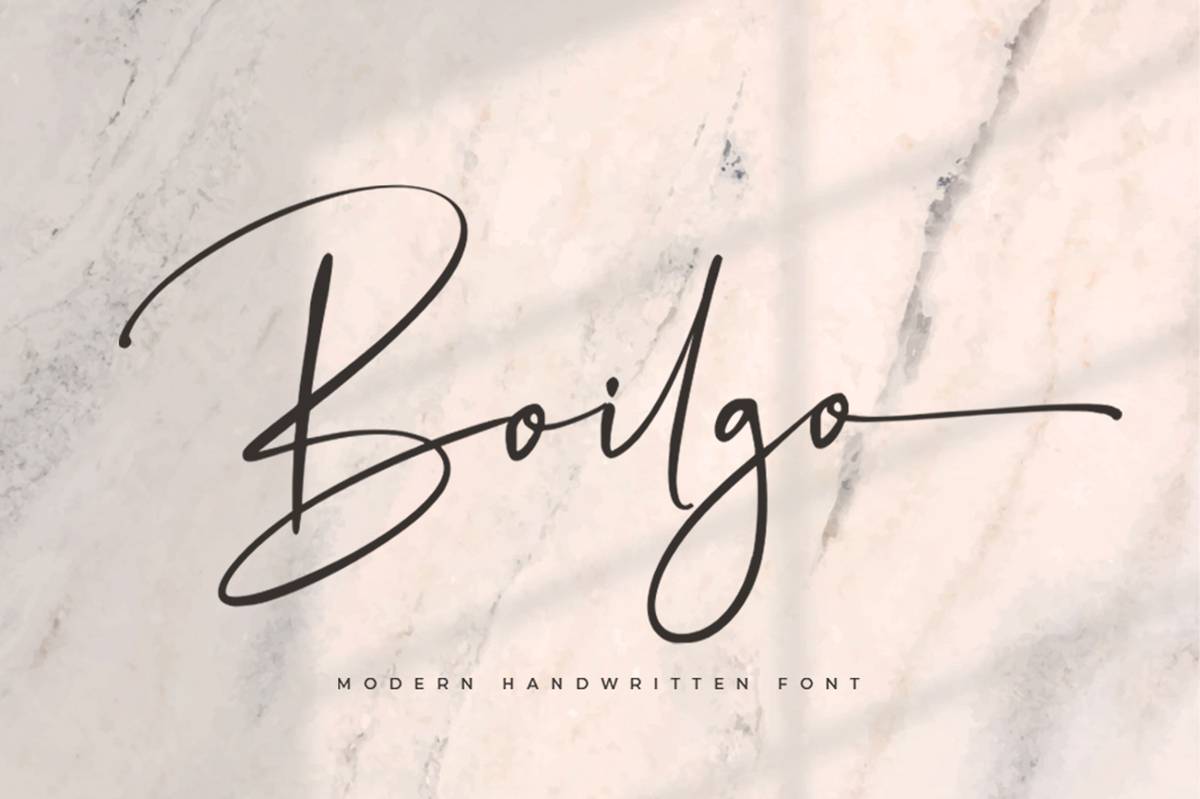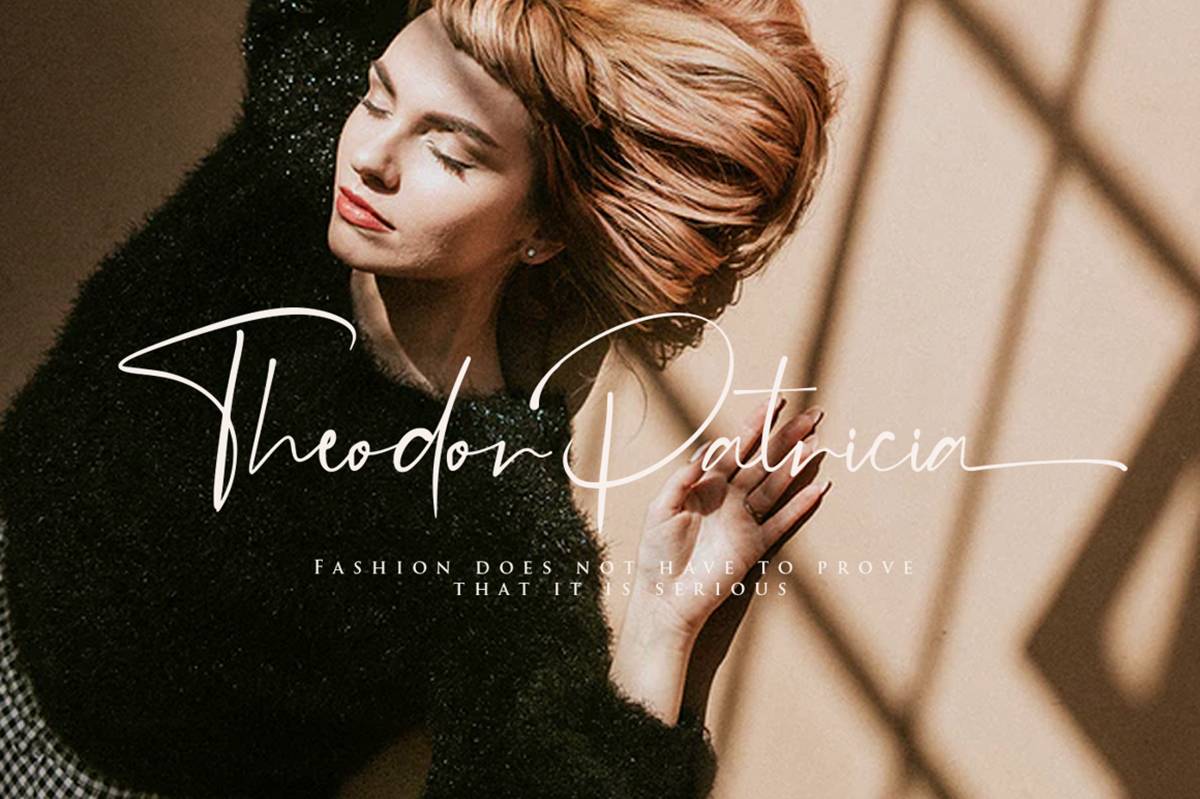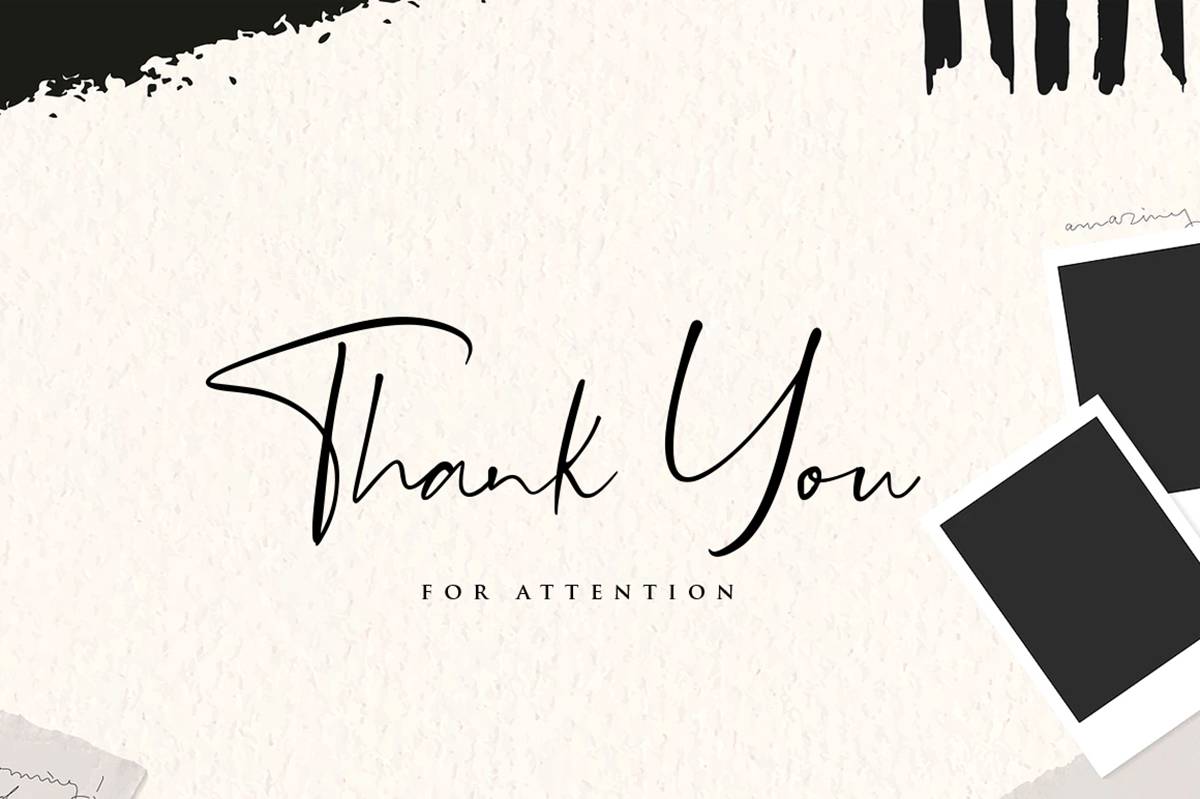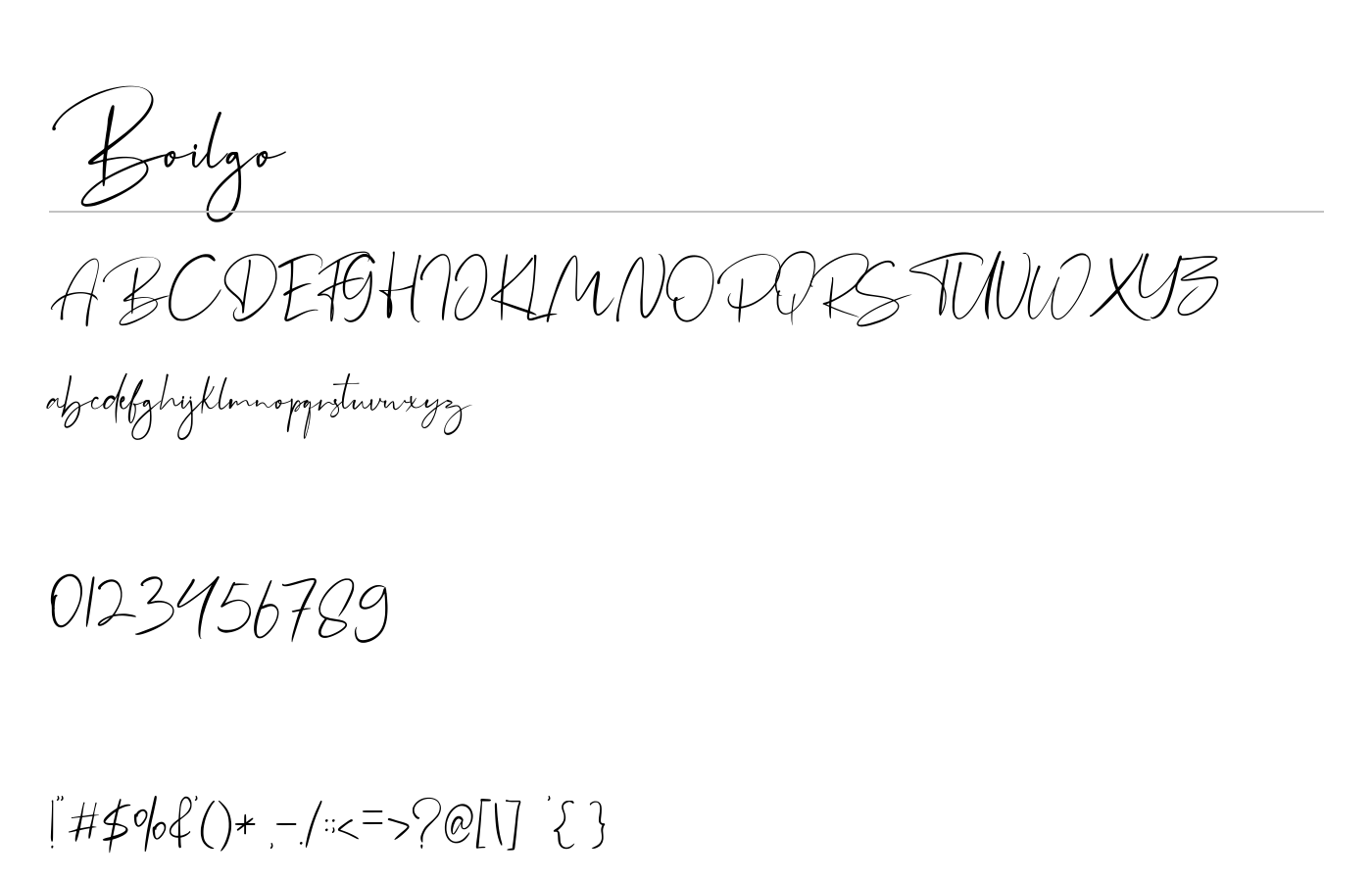
Boilgo is a delicate, handwritten script font with a slender, elegant style that feels light and airy. Its tall, narrow letterforms and flowing strokes give it a refined, personal touch perfect for invitations, branding, and creative projects that want to convey sophistication with a casual charm. This font works great in designs that seek a graceful yet approachable aesthetic.
Boilgo Font
About Boilgo Font
| Font family | Boilgo Font |
| Release date | 2019-11-22 |
| Designer | Candra ~ Vultype |